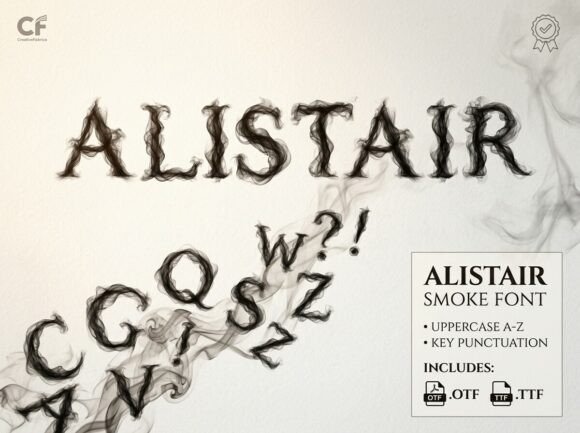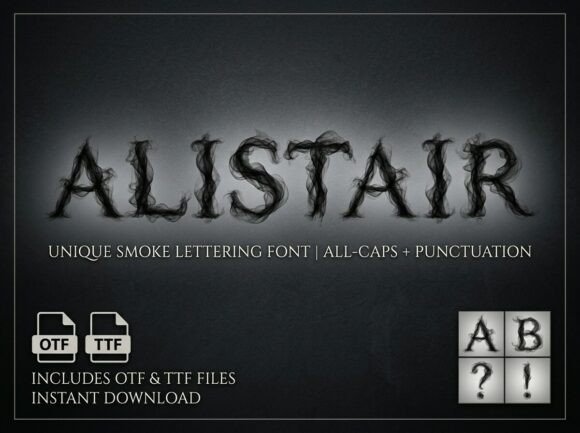
Introducing Alistair: The Unique Smoke Lettering Font
Are you looking for a font that can add a touch of mystery and elegance to your designs? Look no further than Alistair, a unique smoke lettering font that captures the ethereal and elusive. With its hauntingly beautiful atmosphere, Alistair is perfect for designers and crafters who want to create captivating visual whispers that leave a lasting impression.
The Inspiration Behind Alistair
Alistair is a font that draws inspiration from the mysterious and often elusive nature of smoke. Each all-caps character is composed of wispy, swirling tendrils of dark vapor, creating a realistic “smoke” effect that feels fluid and mysterious. The font’s creator aimed to capture the essence of smoke’s ephemeral nature, translating it into a typographic form that exudes an otherworldly charm.
Key Features of Alistair
- Unique Smoke Lettering: Alistair’s characters are crafted to resemble wispy tendrils of smoke, adding a hauntingly beautiful effect to your designs.
- All-Caps Characters: The font features all-caps characters, ensuring a bold and striking presence in your designs.
- Fluid and Mysterious: Alistair’s smoke effect creates a sense of fluidity and mystery, perfect for designs that require an air of intrigue.
Alistair’s versatility makes it an excellent choice for a range of design projects. Here are some ideas to get you started:
- Cinematic Posters: Add a touch of mystery and drama to your movie posters with Alistair’s hauntingly beautiful smoke lettering.
- Dark Fantasy Branding: Create a captivating brand identity with Alistair’s unique smoke effect, perfect for dark fantasy games, books, or movies.
- Mystery Novel Covers: Draw readers in with Alistair’s atmospheric and intriguing font, ideal for mystery novel covers.
- Edgy Streetwear: Add a bold and striking touch to your streetwear designs with Alistair’s smoke lettering font.
Tips for Using Alistair Effectively
To get the most out of Alistair, here are some tips to keep in mind:
- Experiment with Colors: Alistair’s smoke effect looks stunning in dark, muted colors. Experiment with different shades to find the perfect fit for your design.
- Play with Texture: Add depth and interest to your design by combining Alistair with textured backgrounds or overlays.
- Balance is Key: As with any bold font, balance is crucial. Use Alistair sparingly to create visual interest without overwhelming your design.
Why Designers and Crafters Love Alistair
Alistair has quickly become a favorite among designers and crafters due to its unique and captivating design. Here are some reasons why:
- Unforgettable Atmosphere: Alistair’s smoke lettering effect creates an unforgettable atmosphere that draws viewers in.
- Versatility: The font’s versatility makes it suitable for a wide range of design projects, from cinematic posters to edgy streetwear.
Alistair is a unique smoke lettering font that can elevate your designs to new heights. With its hauntingly beautiful atmosphere, versatility, and ease of use, Alistair is perfect for designers and crafters looking to create captivating visual whispers. Whether you’re designing for a gothic aesthetic or a modern abstract look, Alistair ensures your message drifts off the page with unforgettable, atmospheric style.
Get Ready to Make a Statement with Alistair